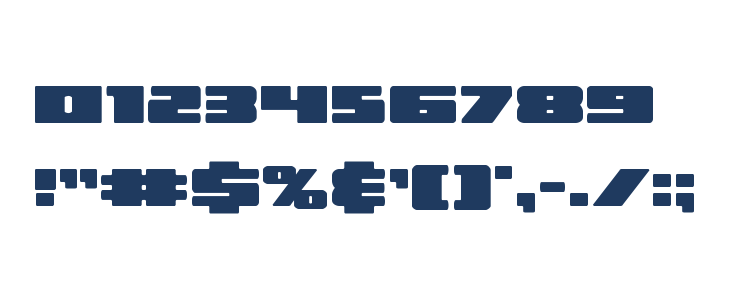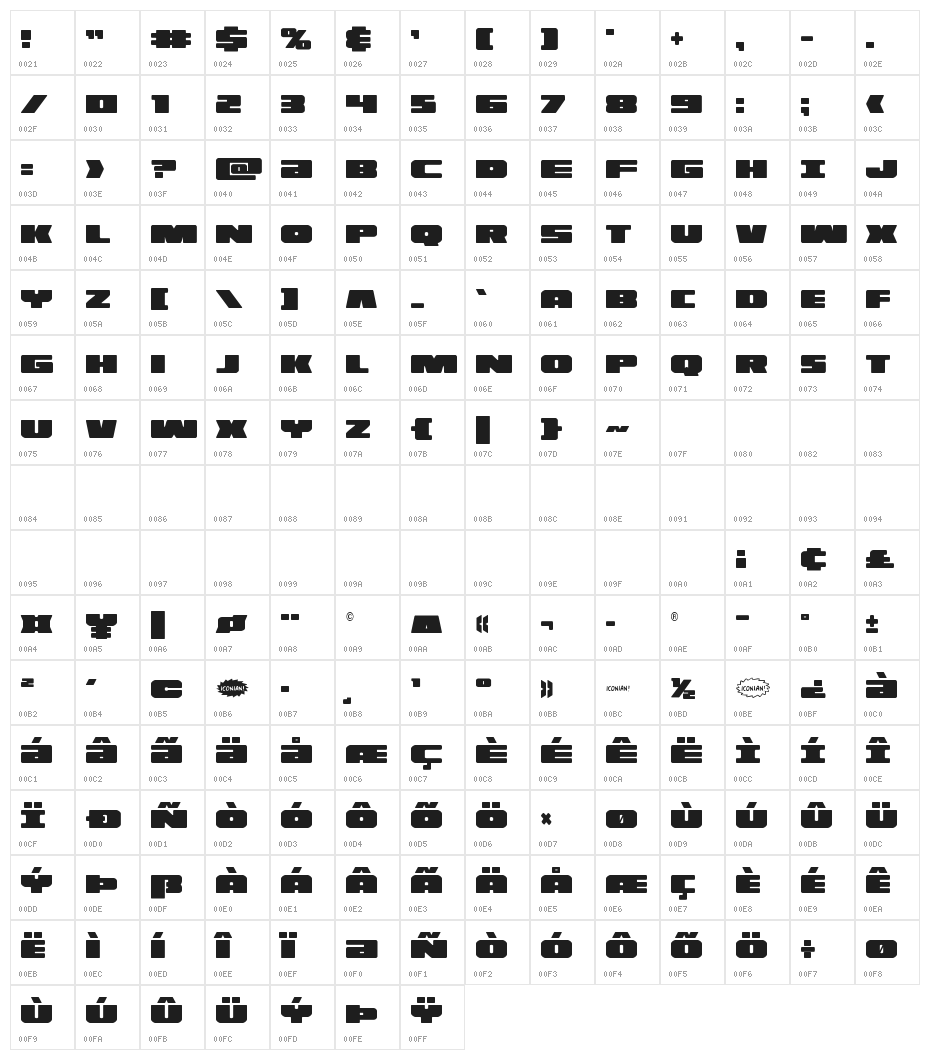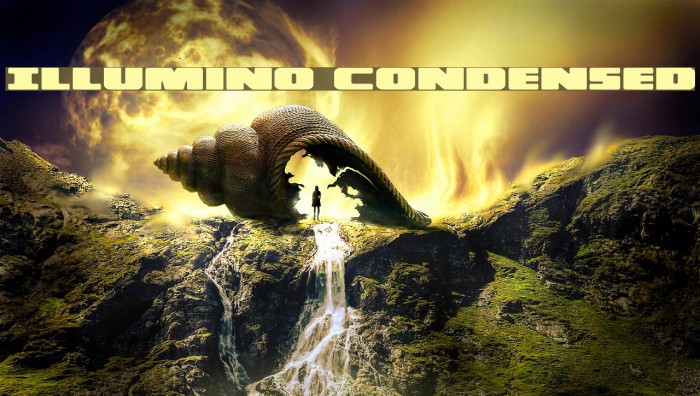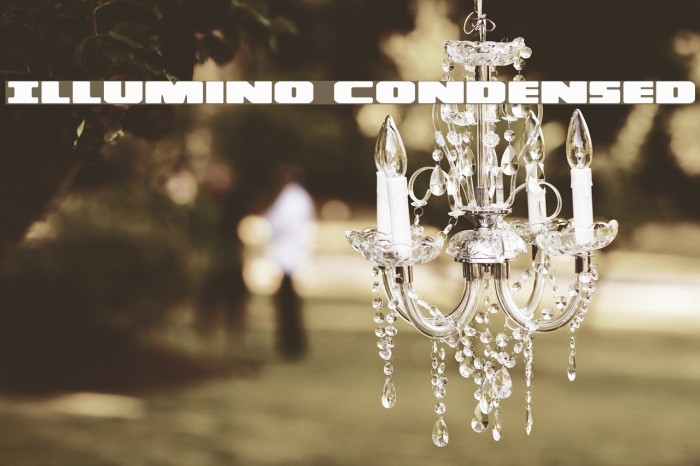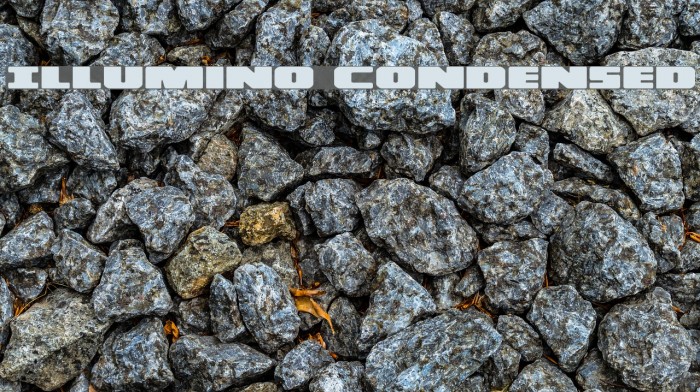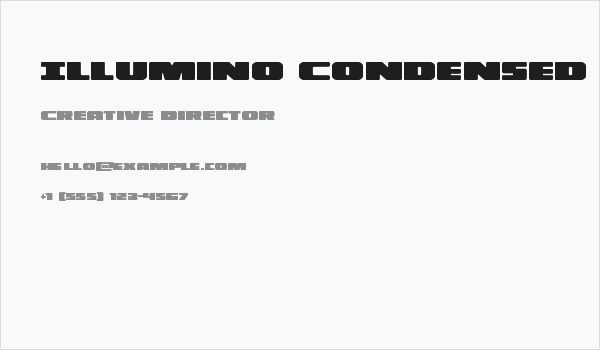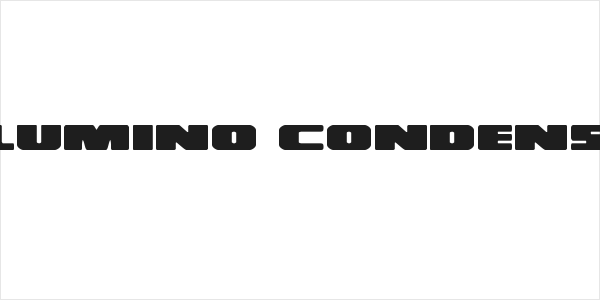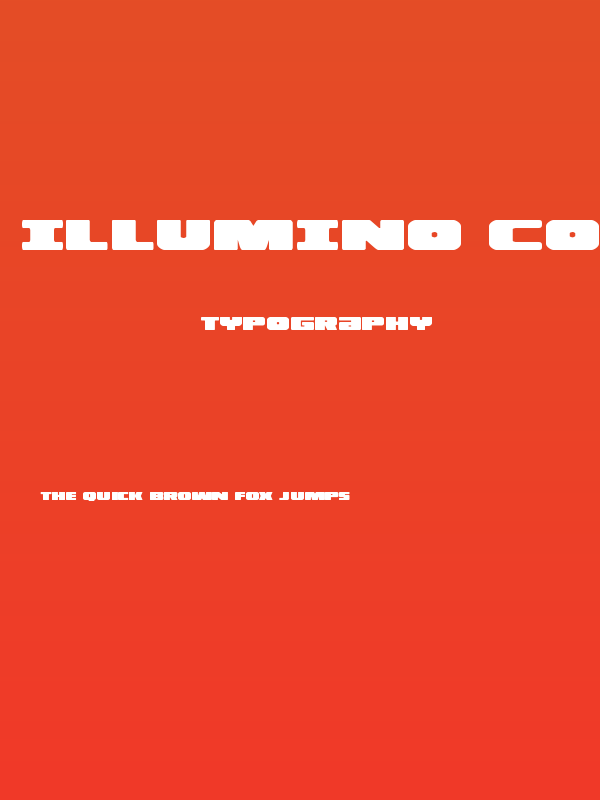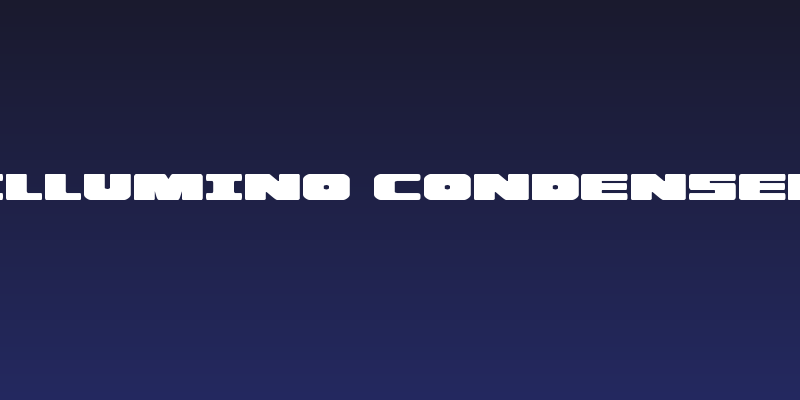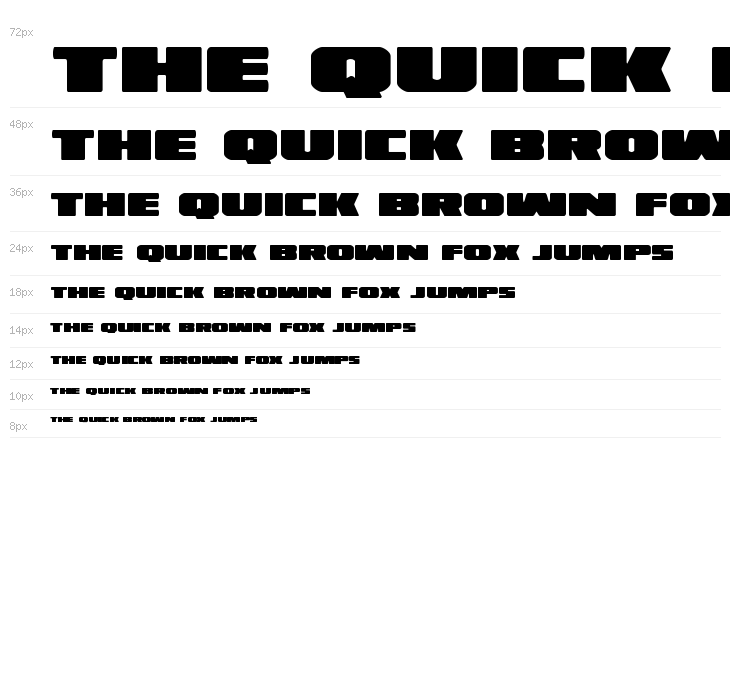
Illumino Condensed Font
Illumino Condensed Description
This font features a bold and condensed style, characterized by its thick, block-like letterforms that convey a sense of strength and modernity. The uppercase letters are uniform in height, creating a cohesive and structured appearance. The numbers and special characters maintain the same boldness, ensuring consistency across all glyphs. Its geometric shapes and sharp edges give it a futuristic and industrial feel, making it ideal for impactful headlines and attention-grabbing designs.
| Proposed Projects | Ideal for branding, posters, and signage where a strong, modern look is desired. |